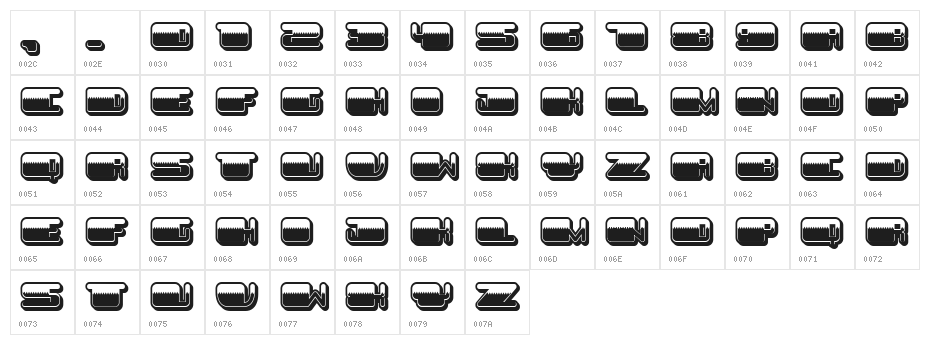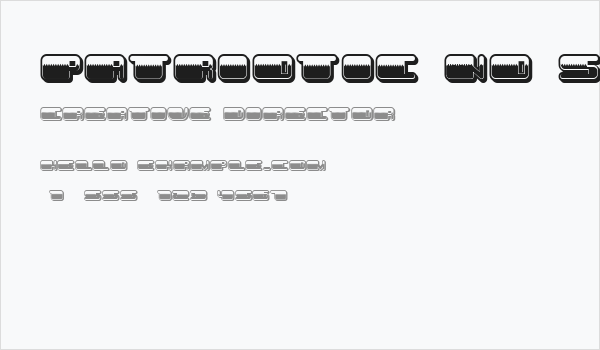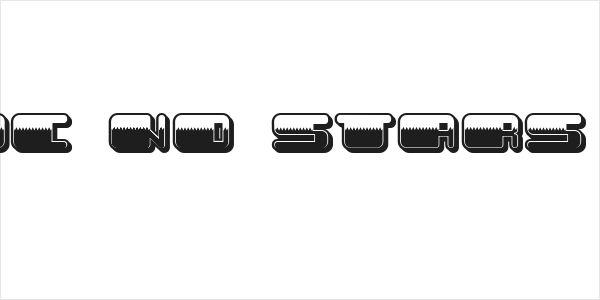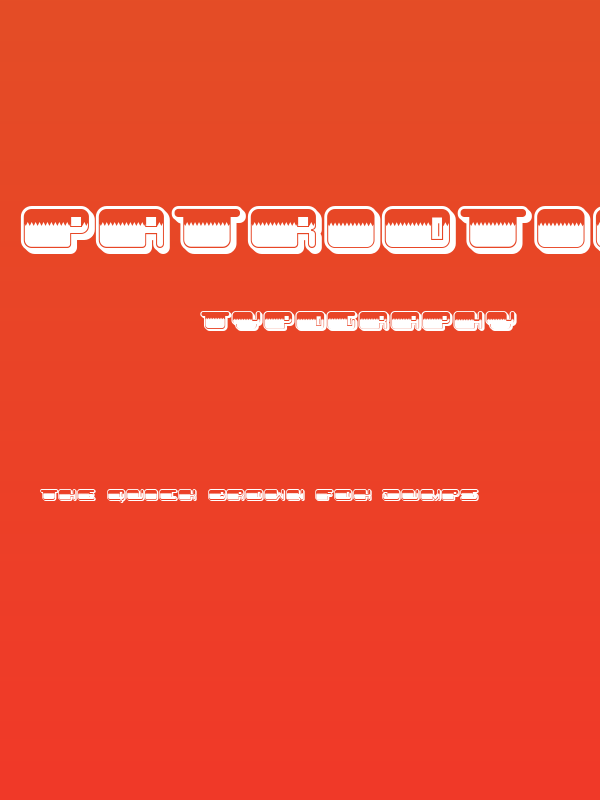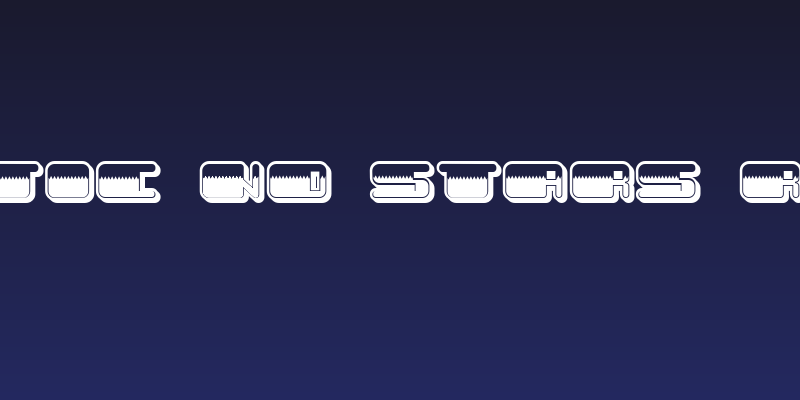
Patriotic No Stars Regular Font
Patriotic No Stars Regular Description
This font features a bold, decorative style with a unique outline and filled design that gives it a striking appearance. The characters are blocky and robust, with a consistent width and a slight rounded edge that adds a touch of softness to the otherwise strong and impactful look. The font's design incorporates a sense of movement and energy, making it ideal for attention-grabbing headlines or thematic projects. Its distinct style is both modern and playful, suitable for creative and dynamic applications.
| Proposed Projects | Ideal for posters, event flyers, branding projects, or any creative design requiring a bold statement. |